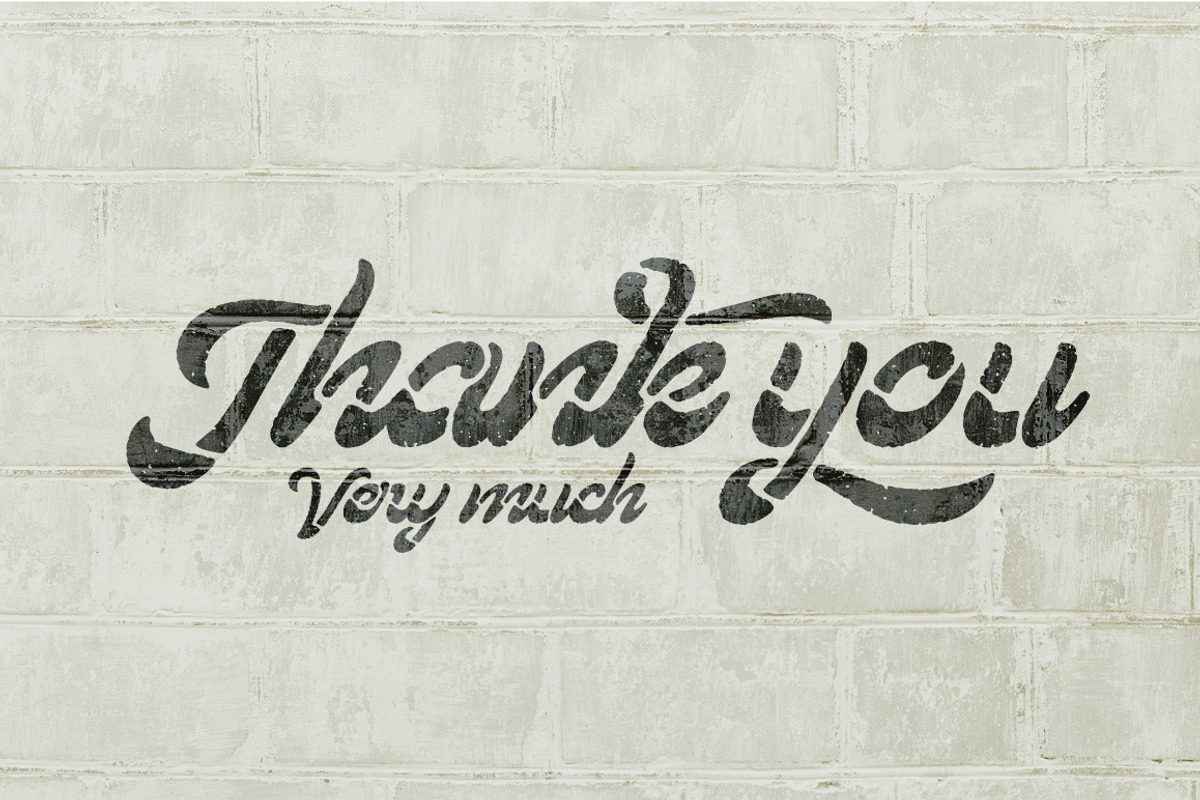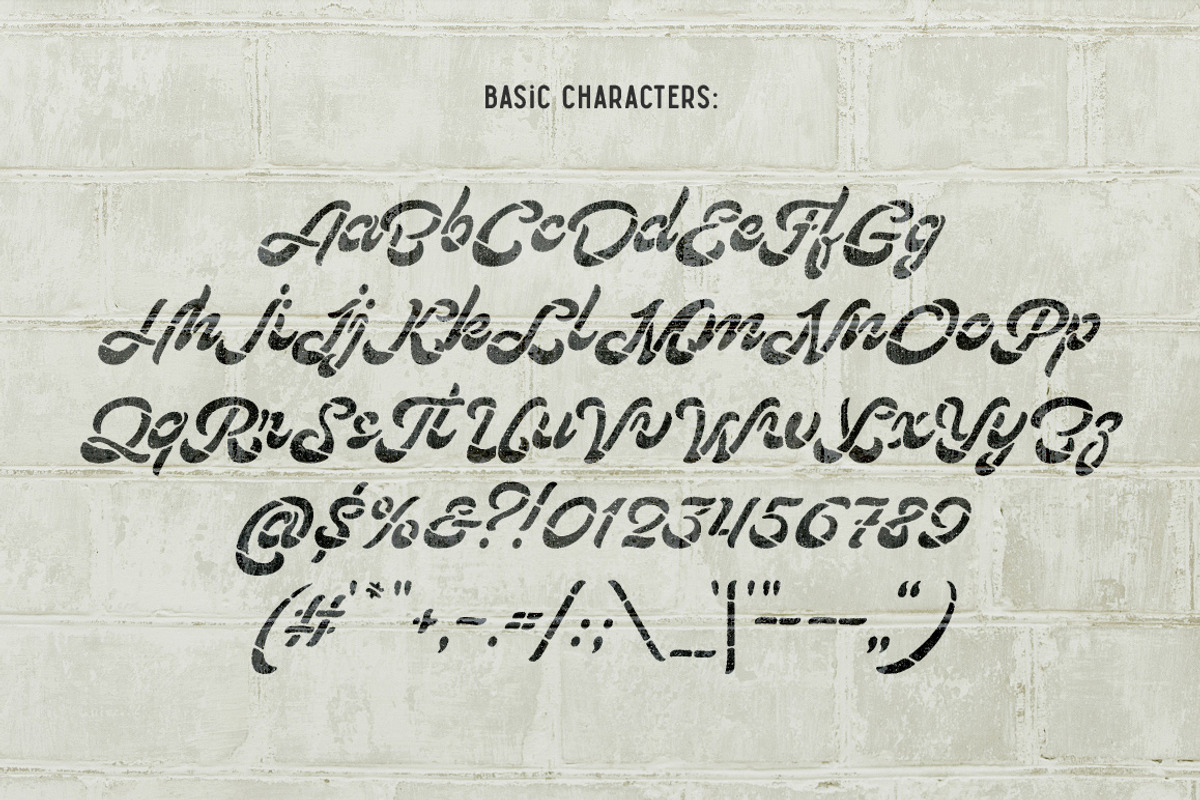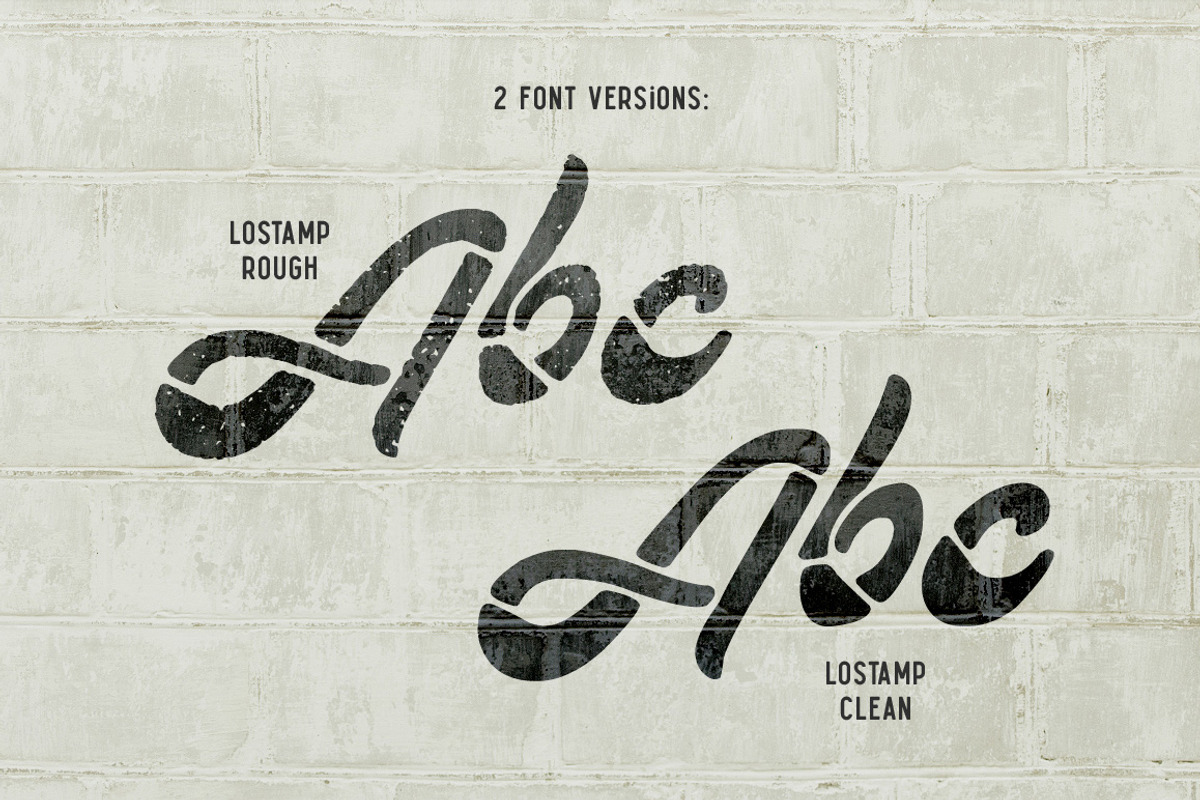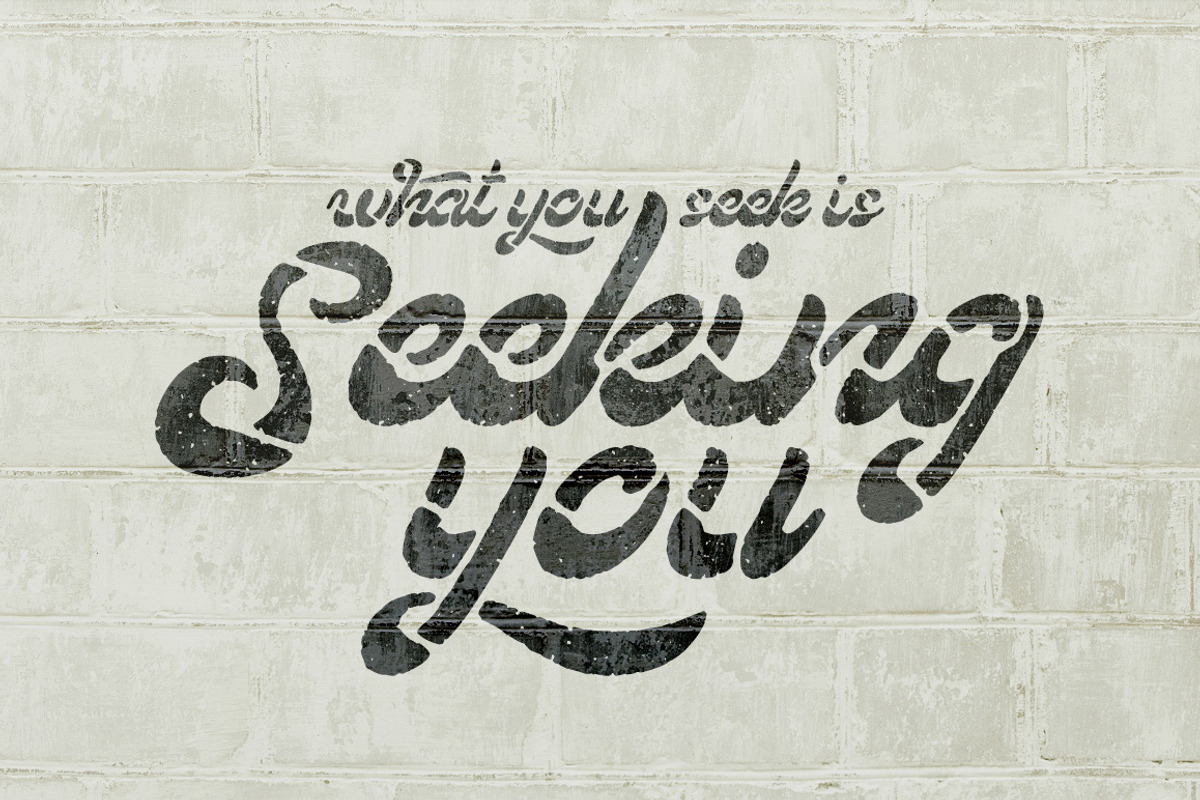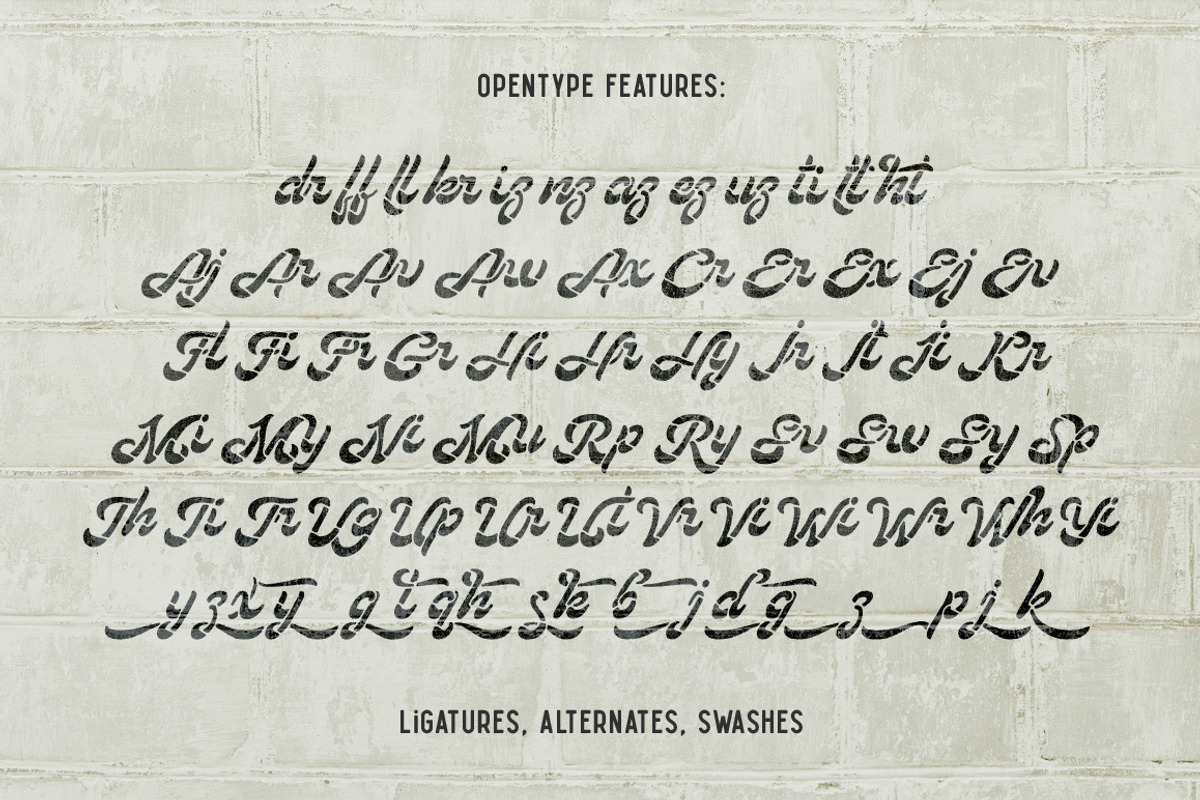
Lostamp font
Lostamp font by Gleb Guralnyk is a font selected for branding, posters, packaging, typography.
- All OpenType features, like alternates, ligatures, swashes also exists in this fonts.
Why Lostamp font is worth a look
Lostamp font by Gleb Guralnyk fits naturally into Branding, posters, packaging, typography.